Dash
Dash is the result of detailed scientific study and a skilful hand. It’s one of the best handwriting fonts we’ve seen, with four different writing speeds: Casual, Slow, Fast, and Fastest. Each speed has a complete set of weights and widths. There are variable fonts available to give you flexibility.
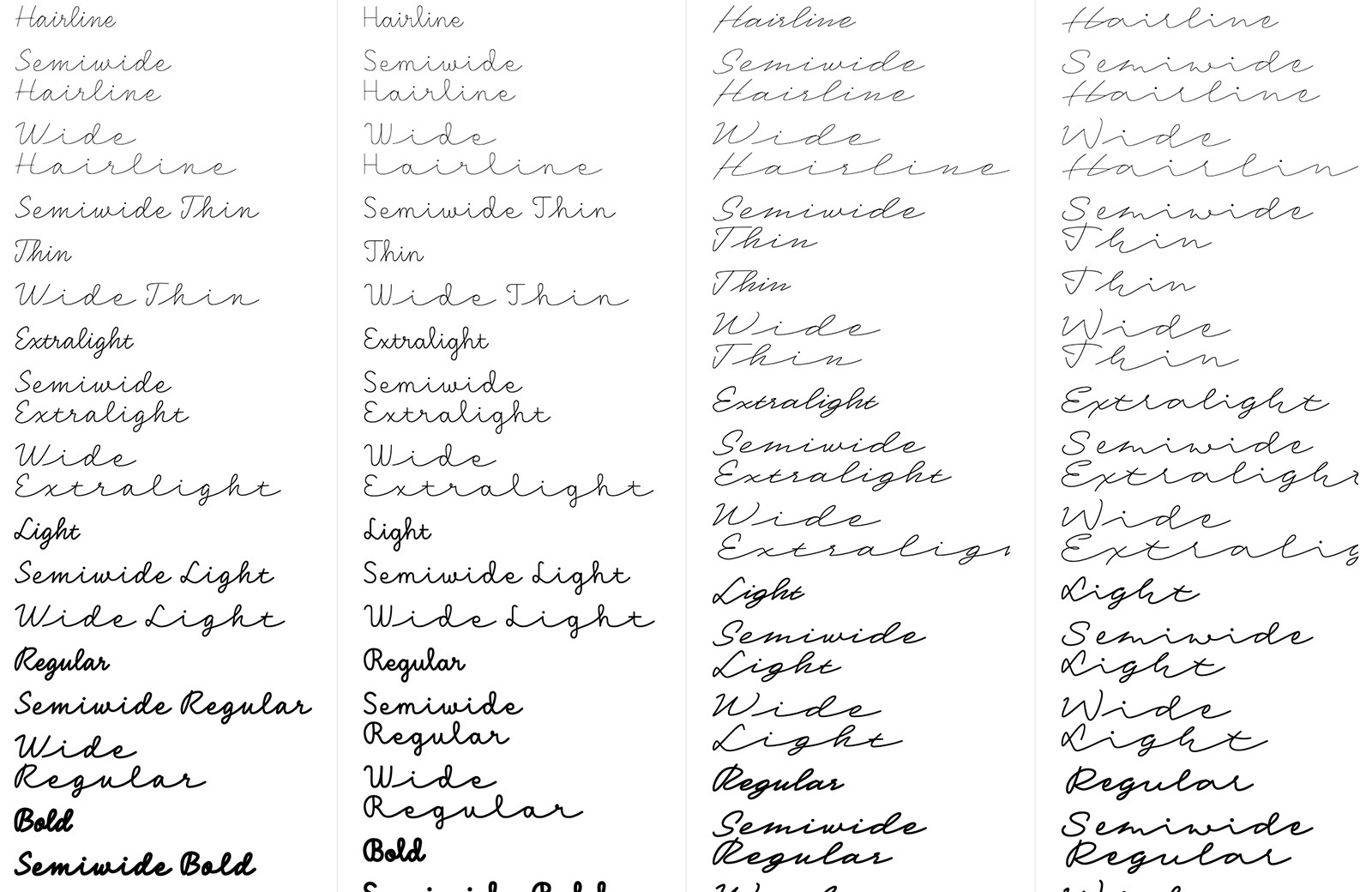
Mergansers Variable
Mergansers Variable is a variable typeface intended for use at small sizes. It was inspired by the birding community but works well for any passages of body text and, as a variable font, is ideally suited to websites.
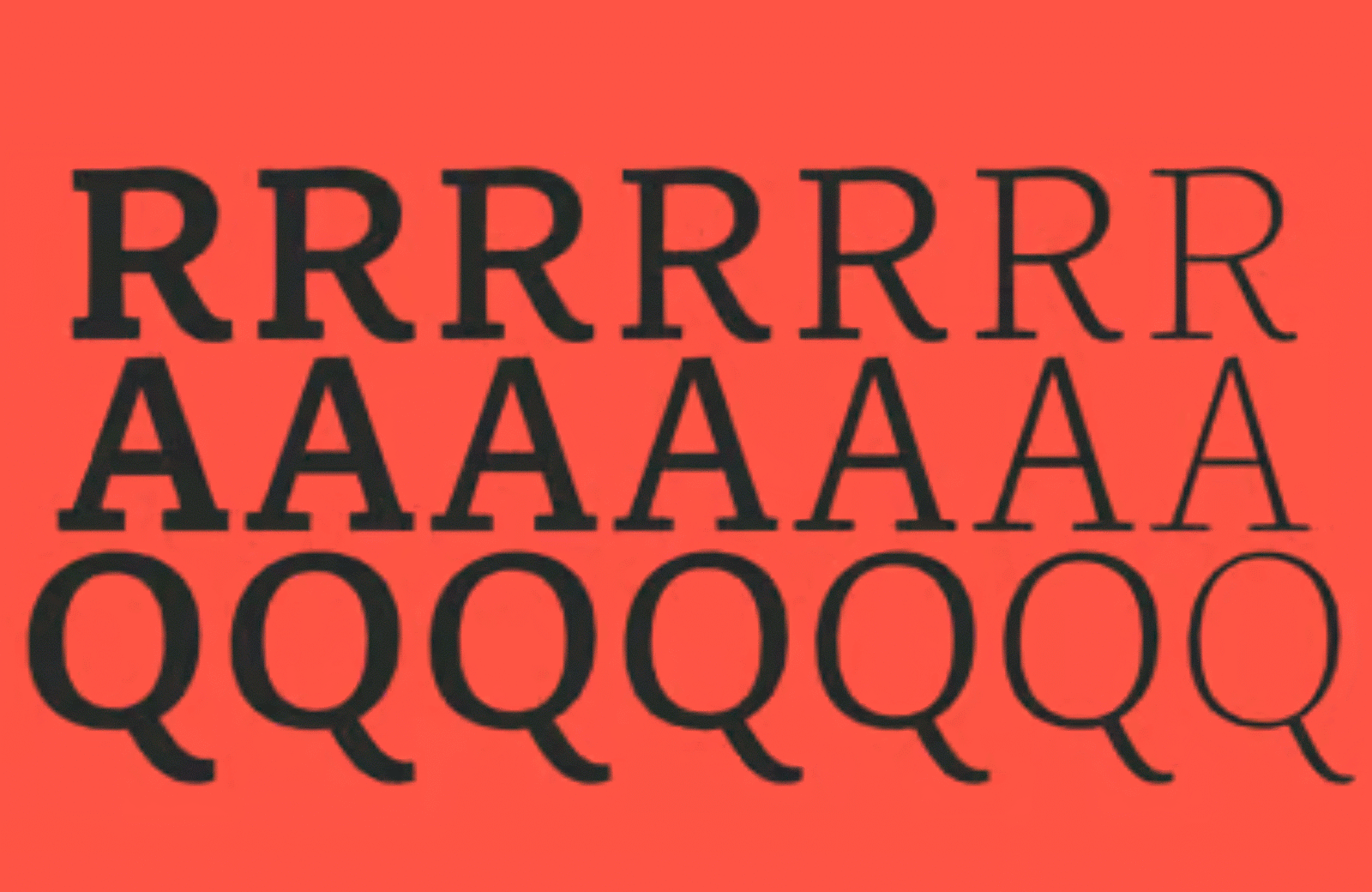
00 Wagram
00 Wagram is a collection of fonts that takes millennial office fonts as its starting point. From there, it evolves numerous variations. It uses variable font technology to allow control over weight, contrast, slant, and even character alternatives. As such, it’s an excellent workhorse for demanding projects.
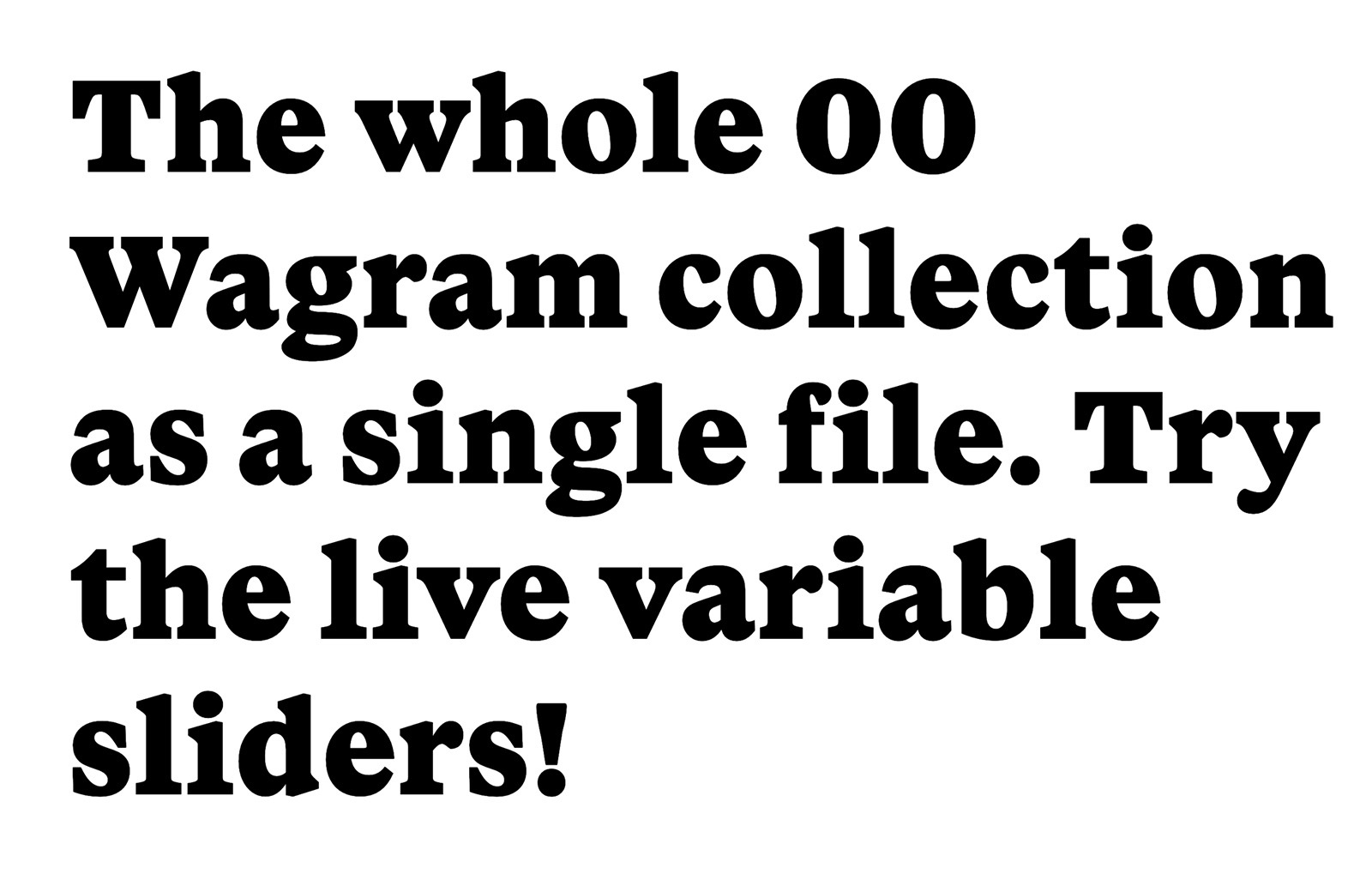
Lambert
Lambert is a charming slab serif that draws inspiration from typewriter fonts — without embracing the monospaced approach. This makes it usable at a variety of different sizes. It includes a range of stylistic alternatives so you can lean into the 19th-century vibe.
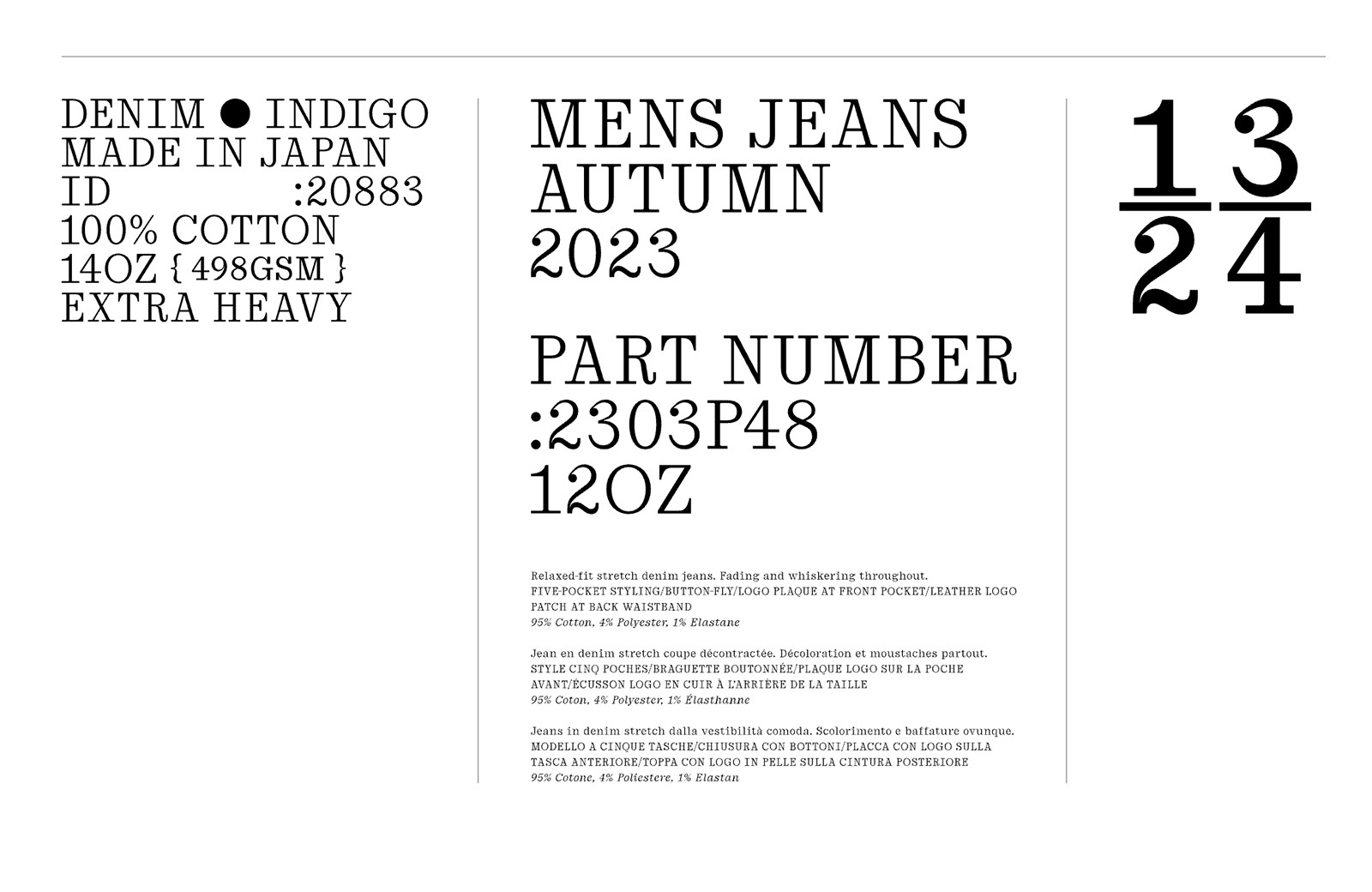
Evans
Evans is a retro-feeling Old Style serif with calligraphic details. Softer and more fluid than many serifs, it has a relaxed, organic aesthetic that makes it great for editorial work and even for the right branding project.
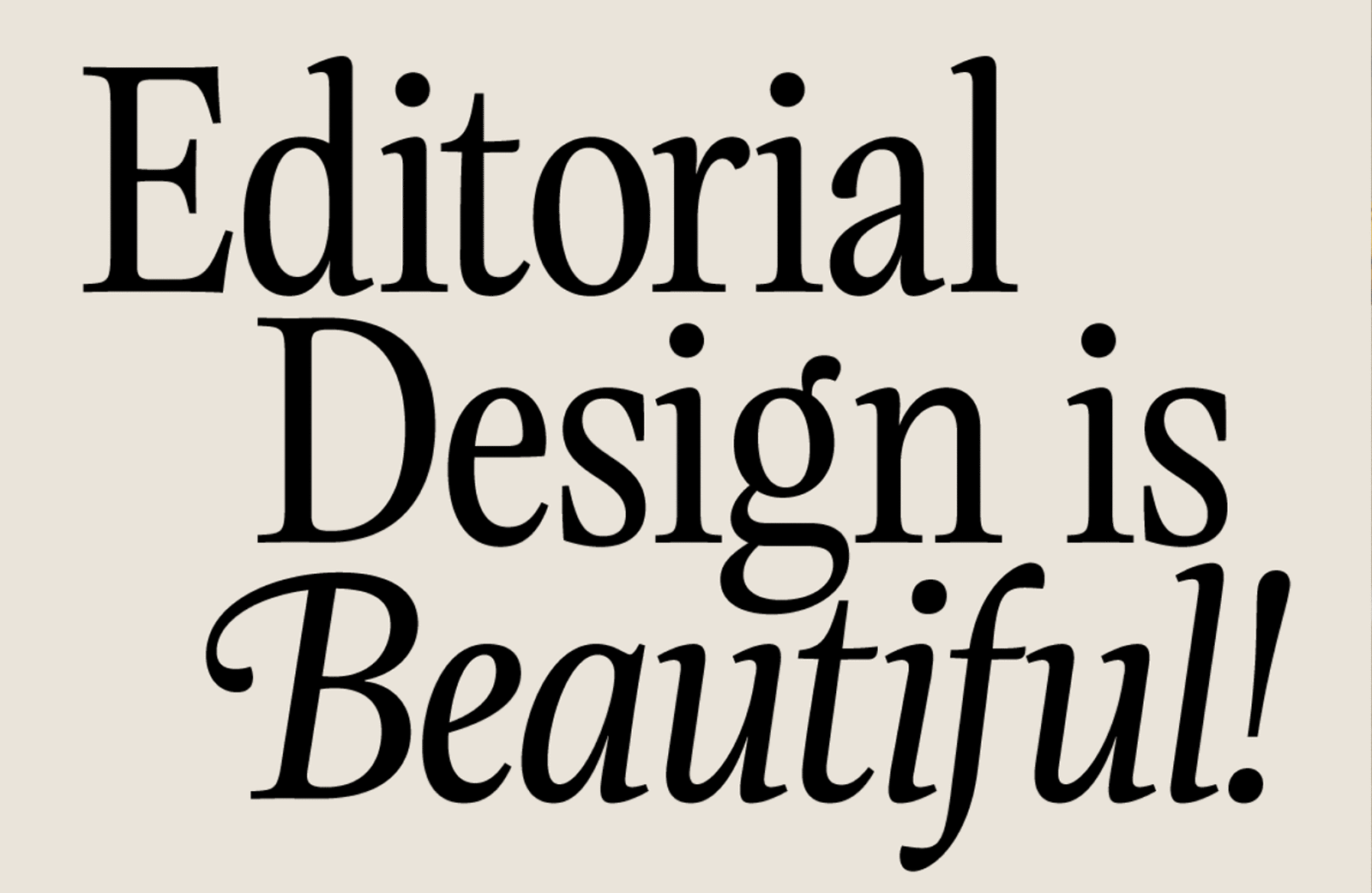
DT Serifia Sans
DT Serifia Sans is a playful grotesque typeface with flared strokes that verge on serifs in the bolder weights. The heavier weights are cartoonish, making it an ideal choice for anyone looking for a left-field option for Christmas and New Year promotions.
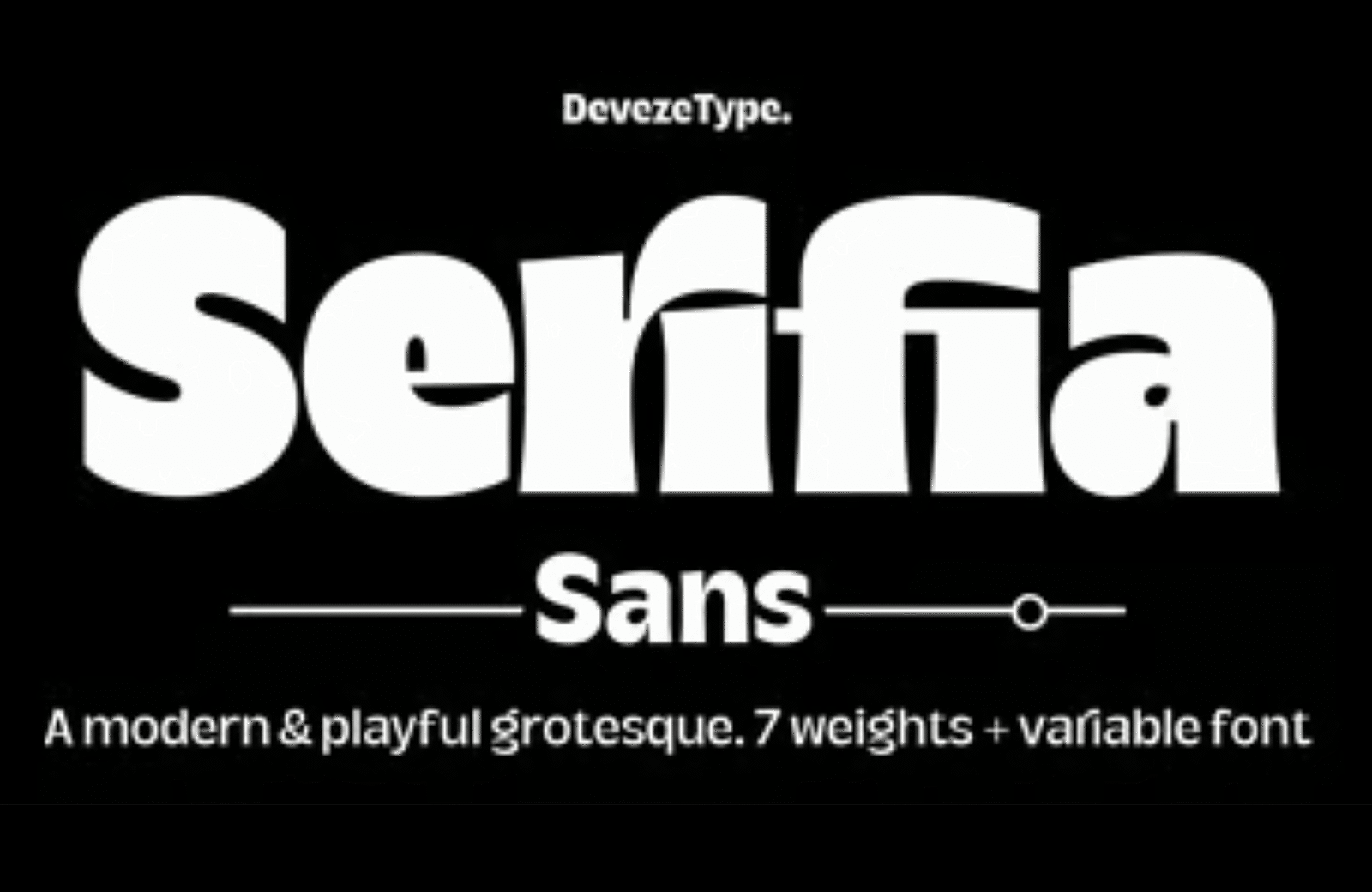
Valpo
Valpo explores the differences between type and lettering, with letter shapes that feel like they’ve been hand-drawn with a brush or fat marker. It’s excellent for mimicking vintage signage and would be the perfect choice for a graphic novel. There are seven weights and a variable font available.
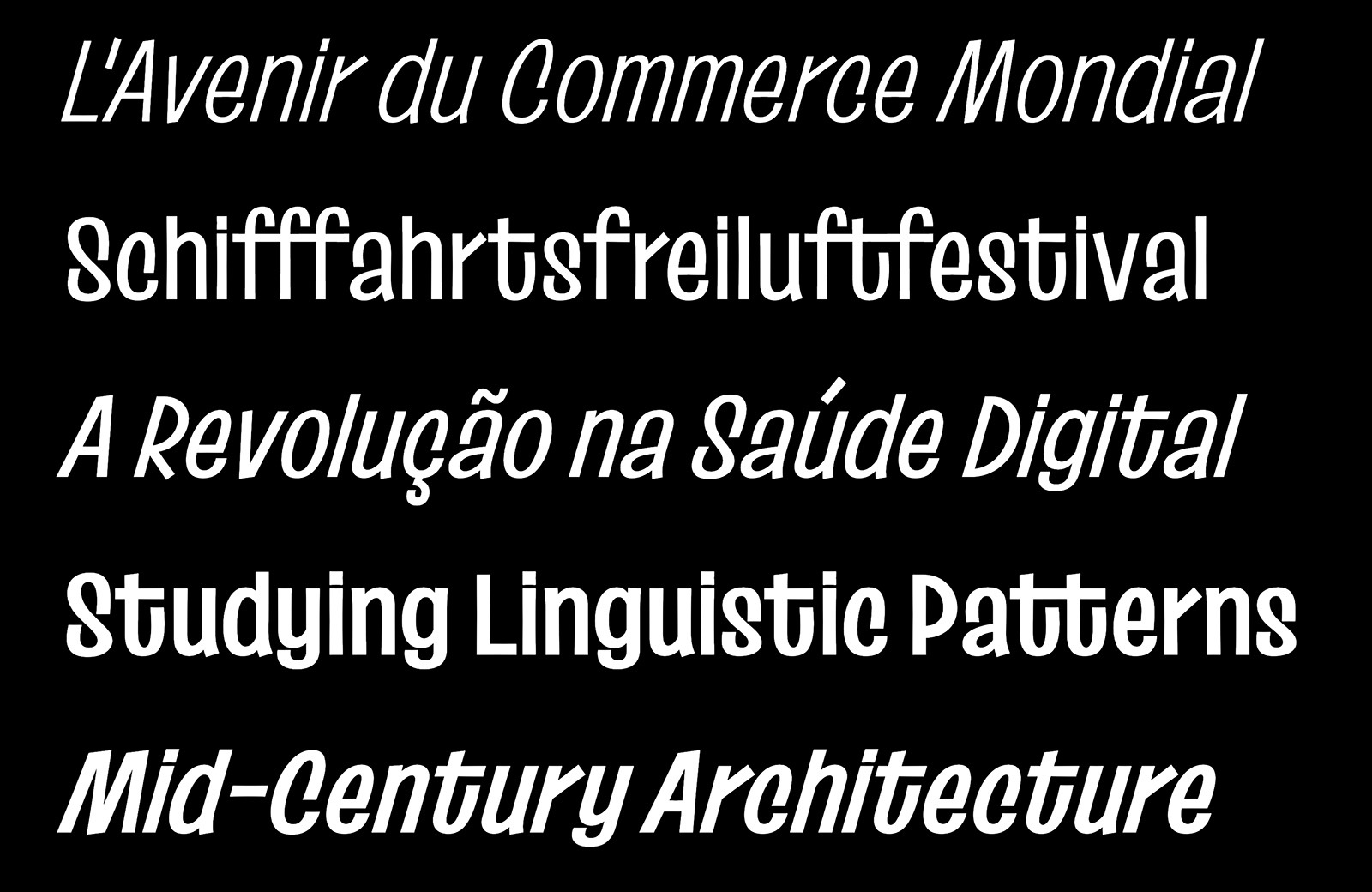
Fenul Standard
Fenul was inspired by human bones in an anatomy book; you can see the influence on the shapes that are thicker at the ends of the stroke. It’s an exceptional serif with plenty of character that looks amazing at large poster sizes. If you’re ever designing anything to do with orthopaedics, you know where to come.
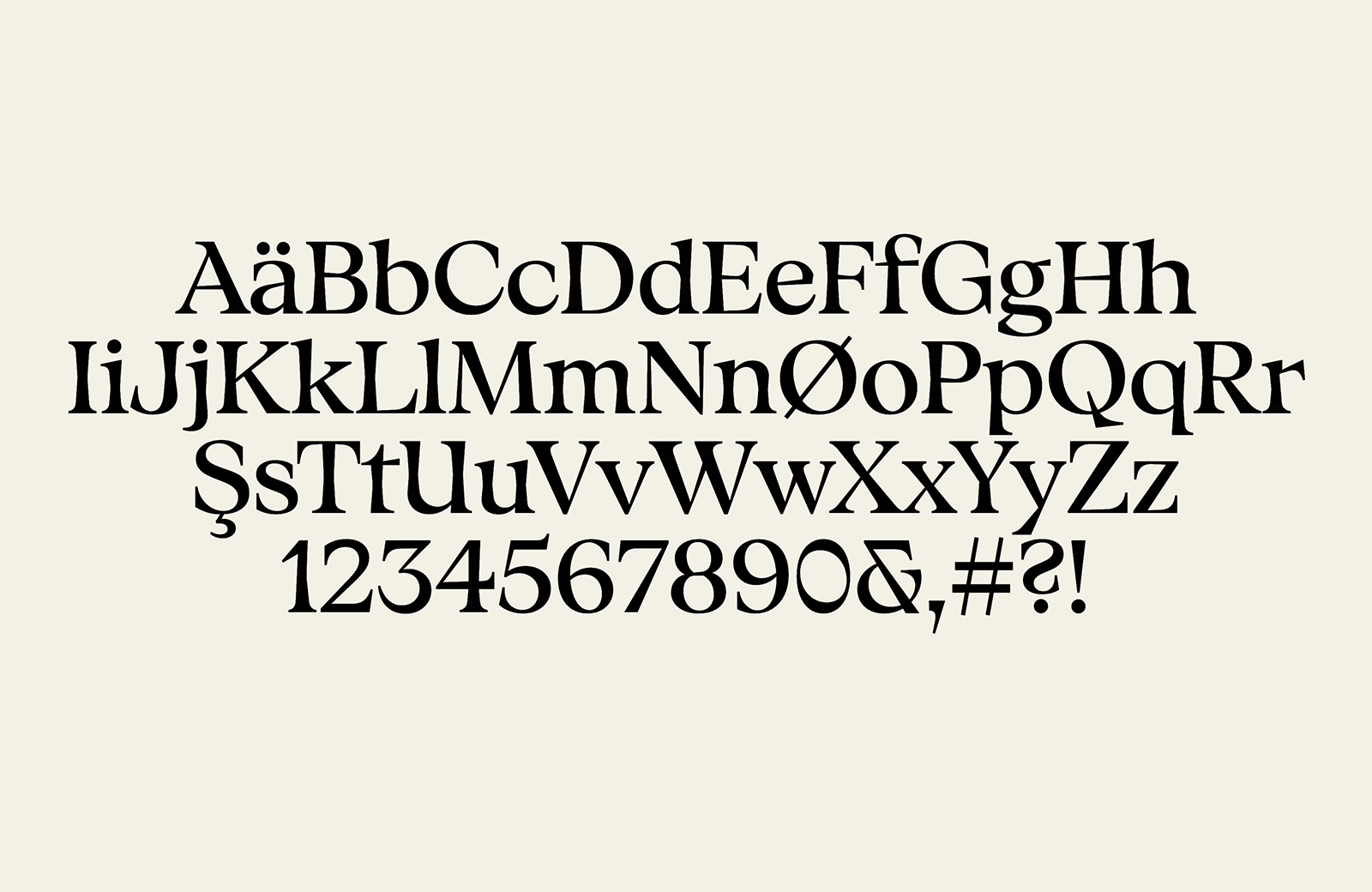
Hello Radio
Hello Radio is a charming monoline script. The vintage feel makes it perfect for branding projects in the lifestyle sector. It works well combined with a solid geometric sans.
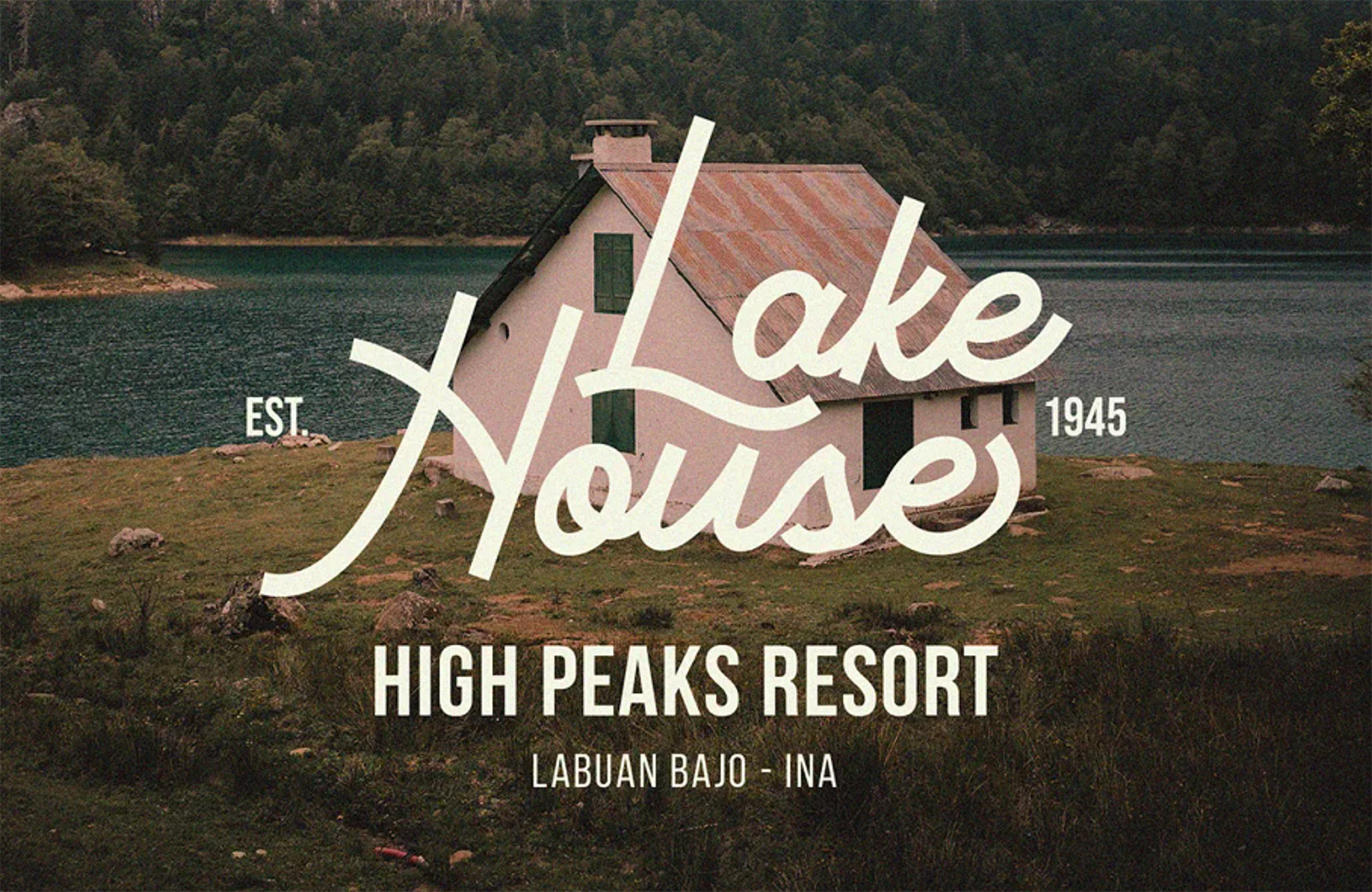
Adjunct
Adjunct is a simple sans-serif typeface with no spurs — meaning the vertical stroke on letters like the p and d doesn’t continue beyond the bowl. The result is a very confident graphic font that works well for logo design.
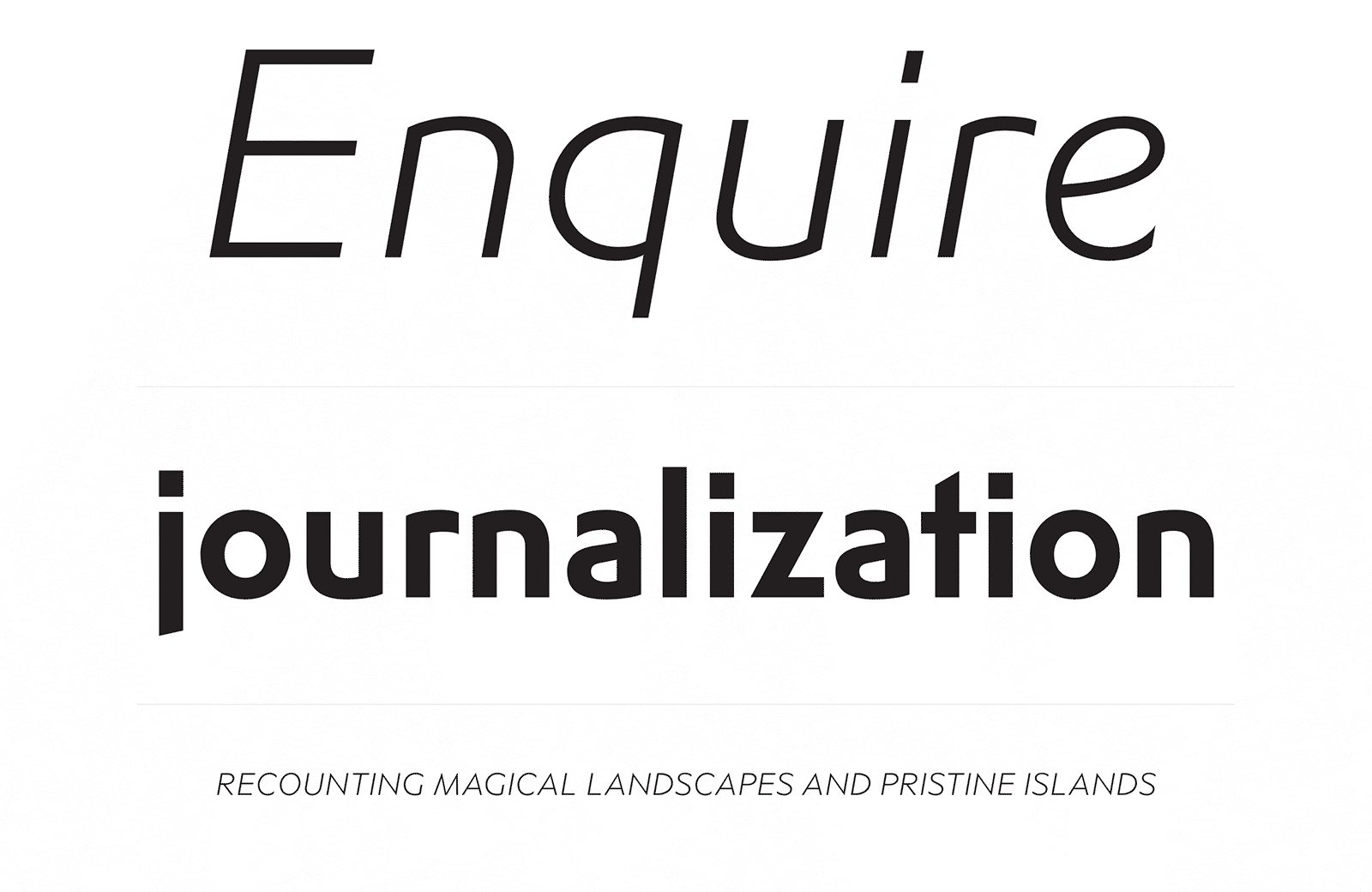
Rundo
Rundo is an all-caps decorative font family. It includes five complementary styles: Fill, Inline, Decline, Stencil, and Partenon. It’s bold, and architectural, and works best at large sizes.
Qommodore
Qommodore is an unusual serif font in that it’s monospaced. It has a high contrast like a didone, with a slight flex on its serifs that creates a less rigid feeling. Some unexpected details make it enjoyable to work with. It is available in six weights with accompanying italics.
Giliant
Giliant is a beautiful example of the Art Nouveau trend in display type. The standard characters are classic shapes, and there’s a range of alternate characters to provide flexibility and a creative option.
Recht
Recht is a clean geometric sans. It works best for short passages of text, and it is a great choice for a logo design that needs to be distinct but not too different.
Hemilk Soons
Hemilk Soons is a novelty display font intended to show text covered in milk. However, we think a little attention would make it look like holiday snow on winter rooftops.